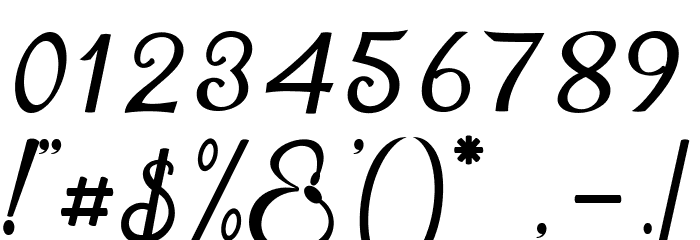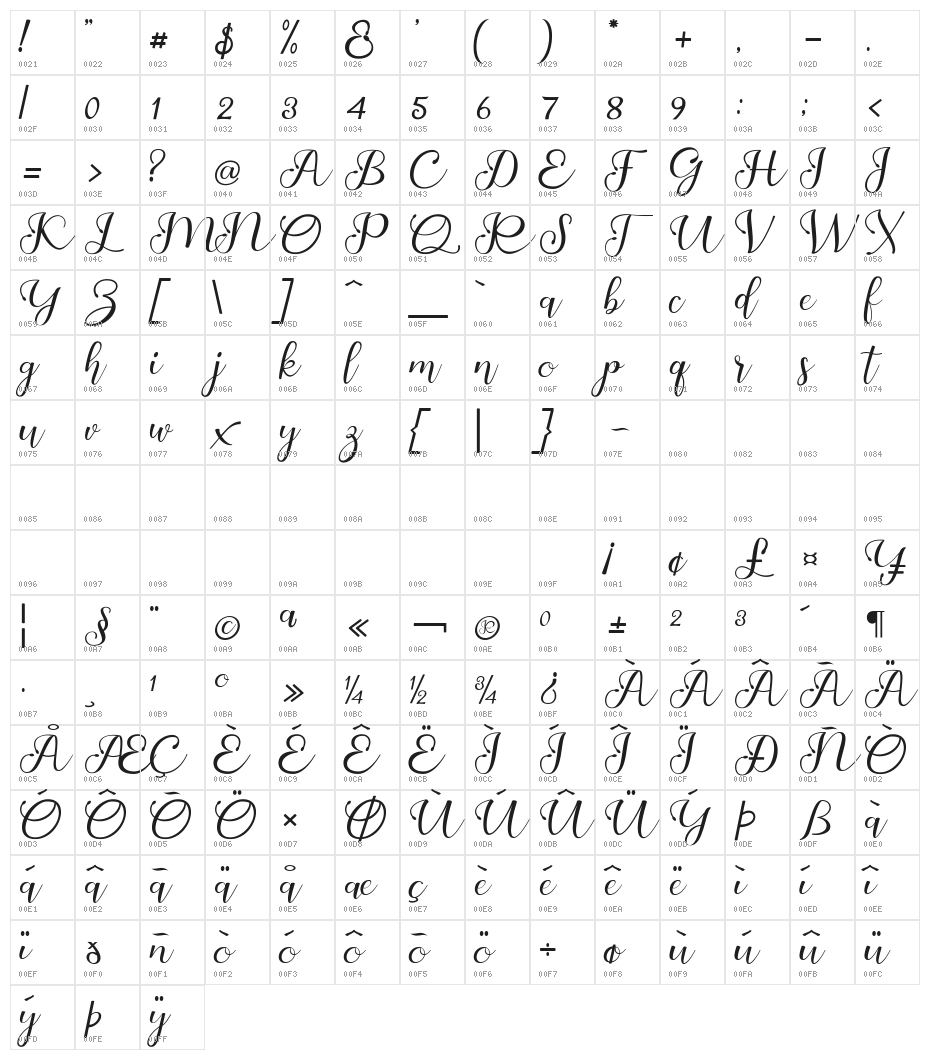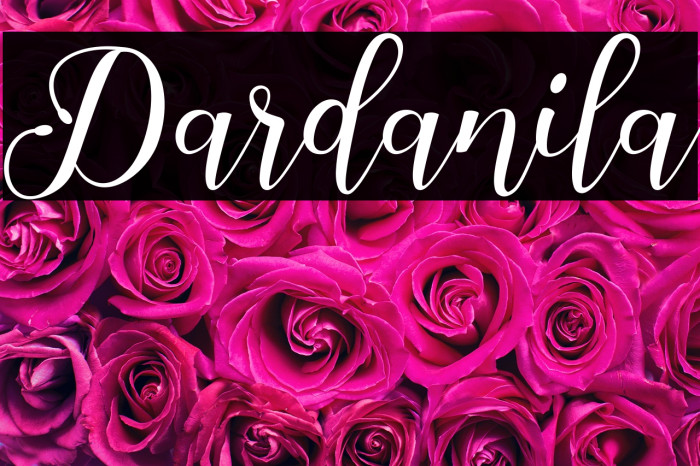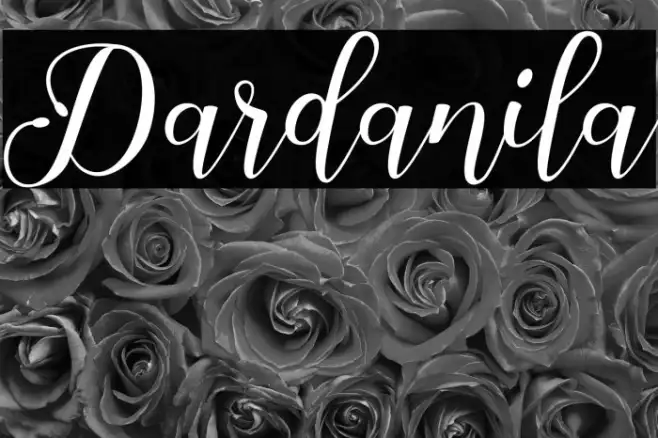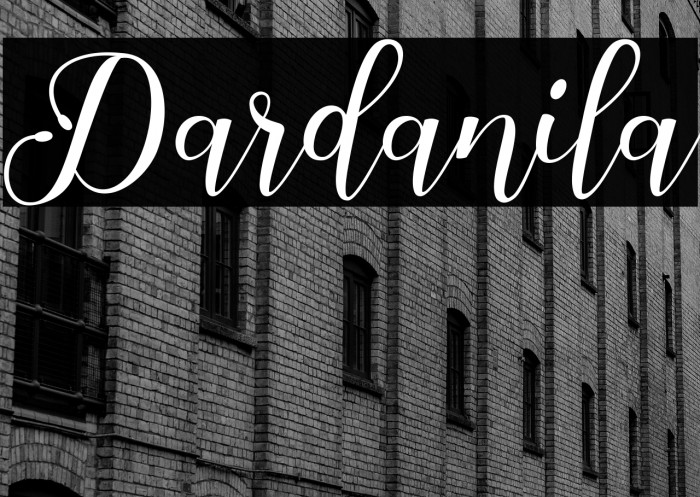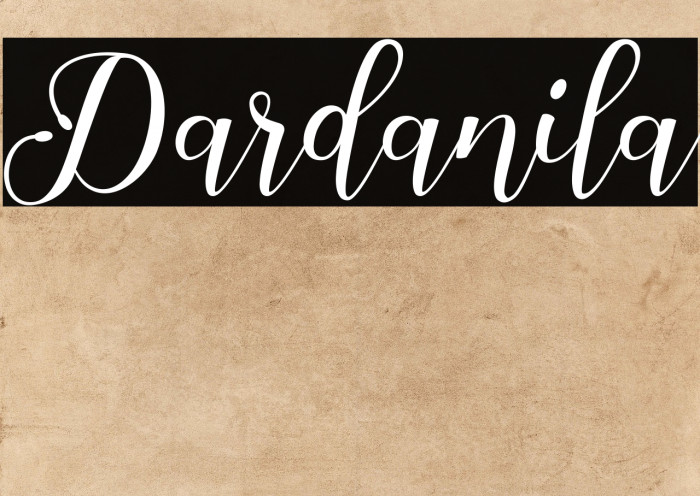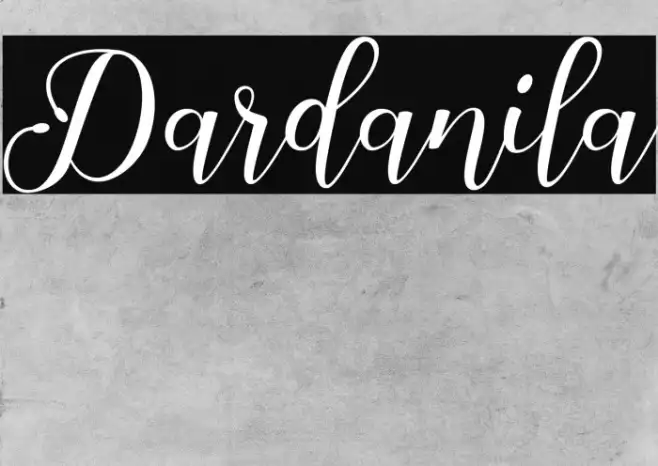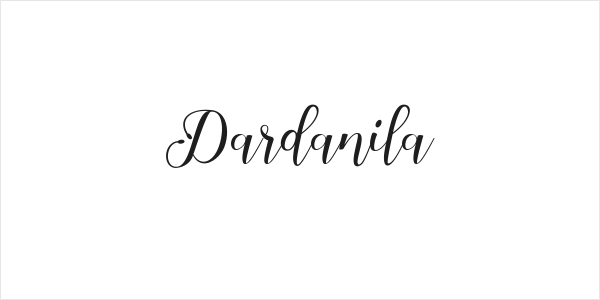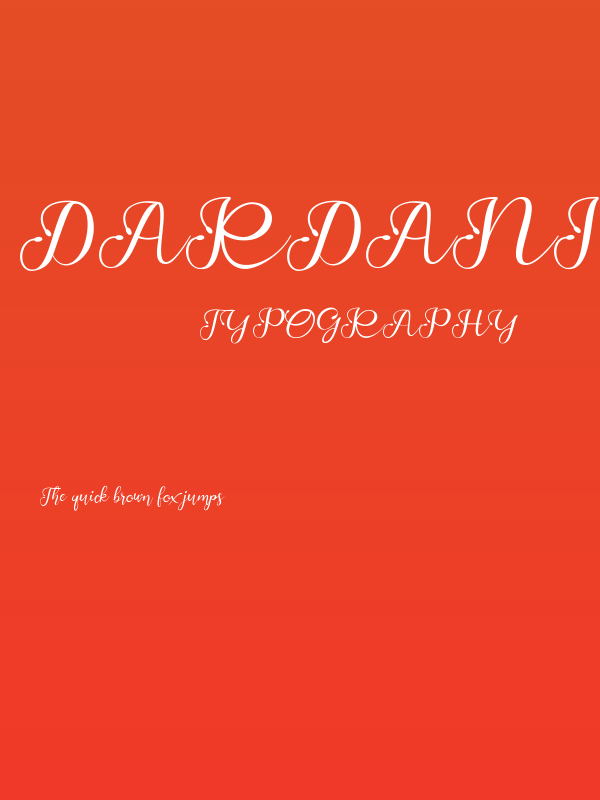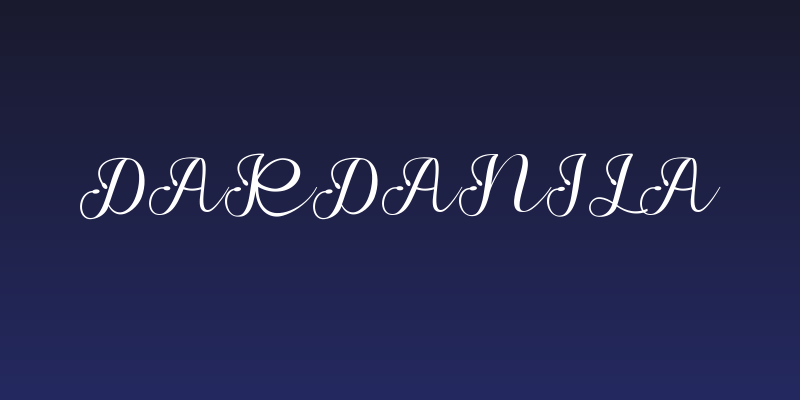
Dardanila Font
Dardanila Description
This elegant script font features a fluid and graceful design, characterized by its flowing curves and loops. The uppercase letters are particularly ornate, with intricate swirls that add a touch of sophistication. The lowercase letters maintain a consistent style, offering a harmonious blend of readability and artistic flair. The numerals and special characters are designed to complement the overall aesthetic, making this font suitable for a variety of creative applications. Its distinct style makes it ideal for projects that require a personal or artistic touch.
Overall StyleElegant
Use CaseLogos, Invitations, Artistic projects
Proposed ProjectsIdeal for wedding invitations, greeting cards, branding, and logo design.